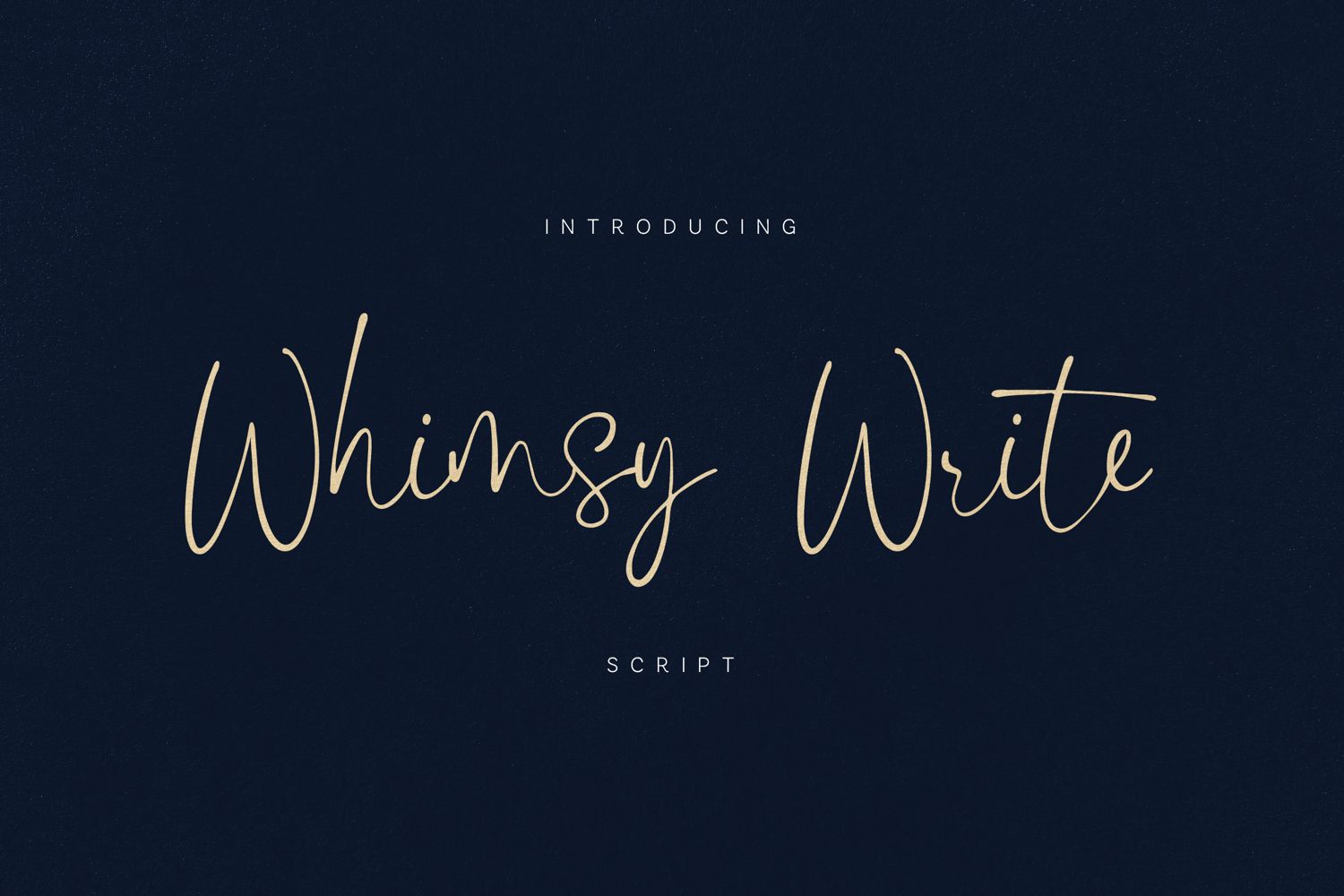
Whimsy Write Elegant Handwritten Script Font
Whimsy Write is a refined handwritten script font designed to bring warmth, elegance, and natural flow to your creative projects.
Crafted with smooth curves, extended strokes, and expressive letterforms, this script blends modern calligraphy with effortless readability. It feels professional — perfect for designers who want authenticity without losing sophistication.
With rich multilingual support and beautifully balanced uppercase and lowercase characters, Whimsy Write works seamlessly across branding, packaging, social media, and editorial layouts.
Font Features:• Uppercase & Lowercase
• Extensive Multilingual Support
• Smooth Connecting Letterforms
Whimsy Write brings elegance, softness, and personality into every word.